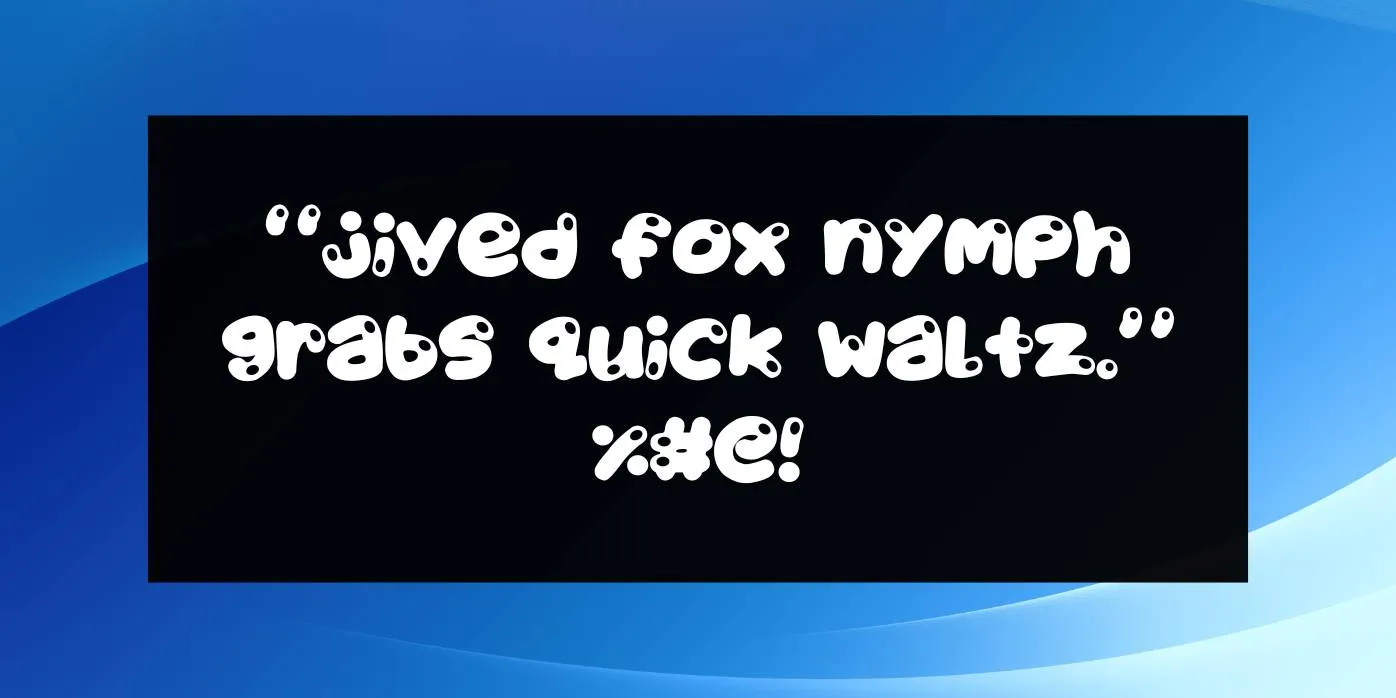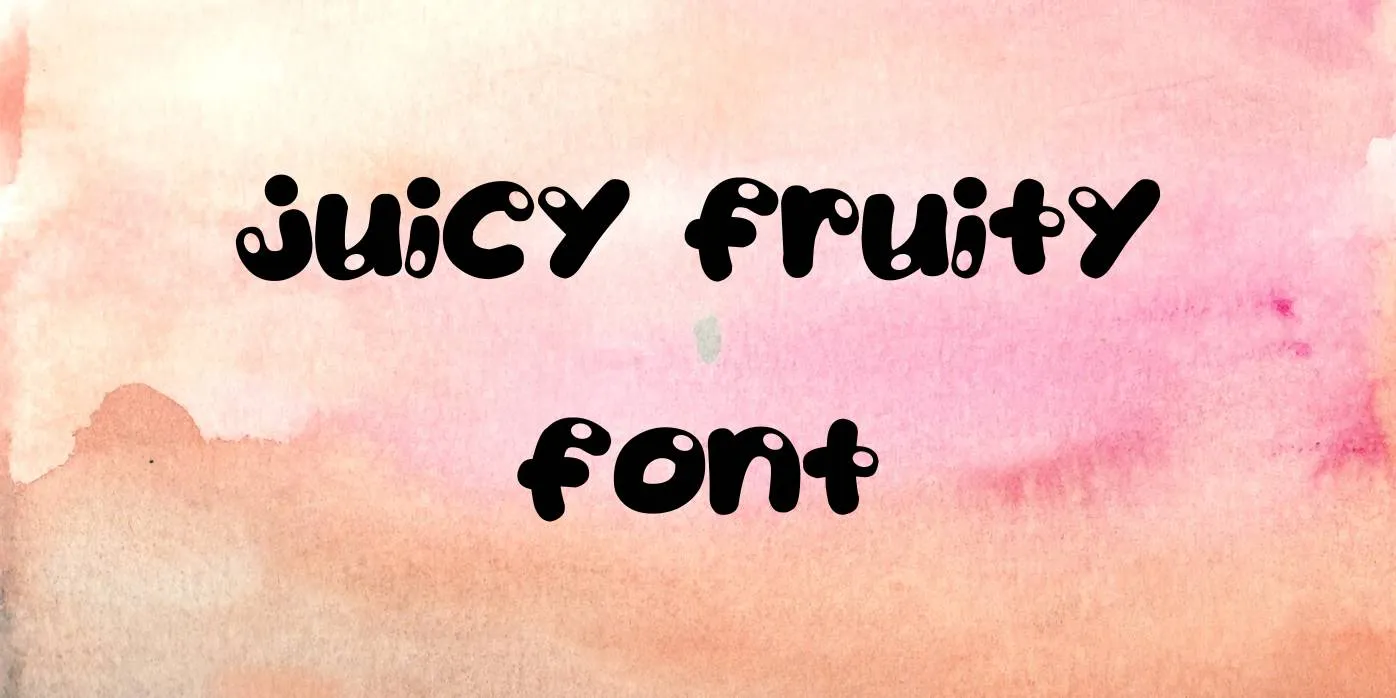
Juicy Fruity Font
We are going to present a cartoon type of font. Juicy Fruity Font is an awesome cartoon type of typeface. Hawtpixel is the designer of this texture. He is a professional graphic designer.
The characters of this typeface are very thick, classic, and highly readable. There is a big dot in each character of this typeface. The glyphs for this awesome texture are 80.  There are three different styles for this texture. They are regular, plain, and highlighted.